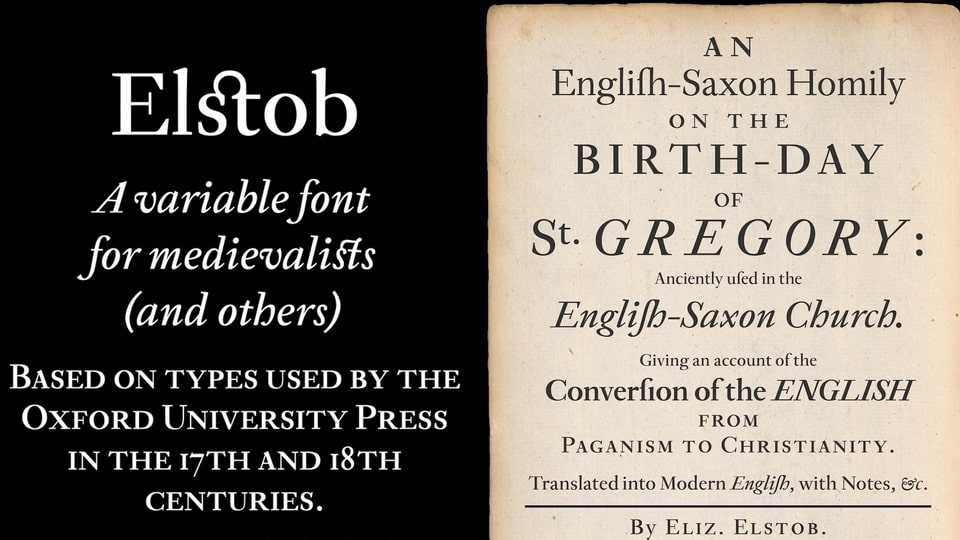
Download Elstob font, a variable typeface for medievalists (named for the eighteenth-century Anglo-Saxonist Elizabeth Elstob), based on the Double Pica commissioned by Bishop John Fell in the seventeenth century.